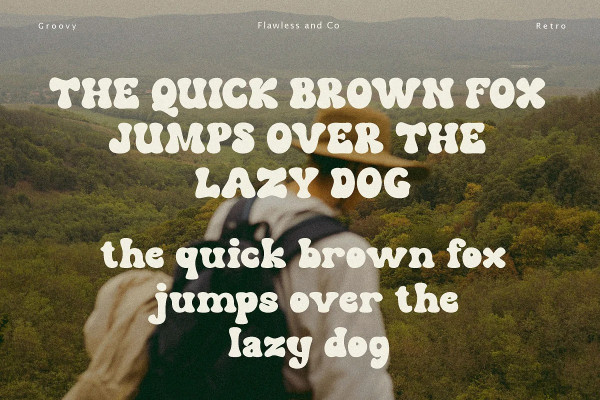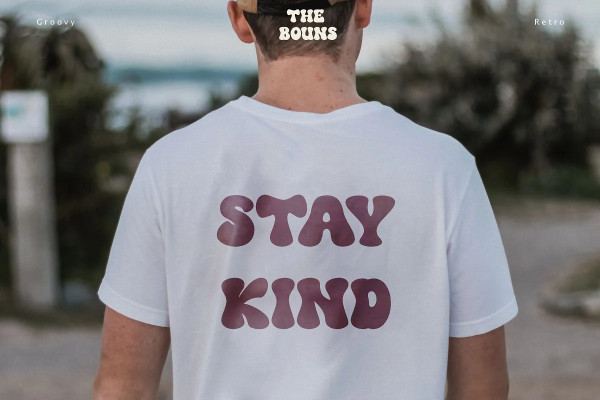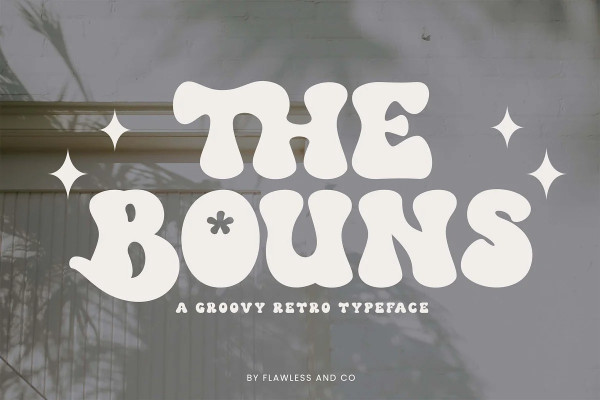
THE BOUNS TYPEFACE
The Bouns Typeface – Modern Boho Retro Font, our new “TheBouns” Modern Retro with Fun and Elegant Style is perfect for branding, logos, invitation, master heads, and more.